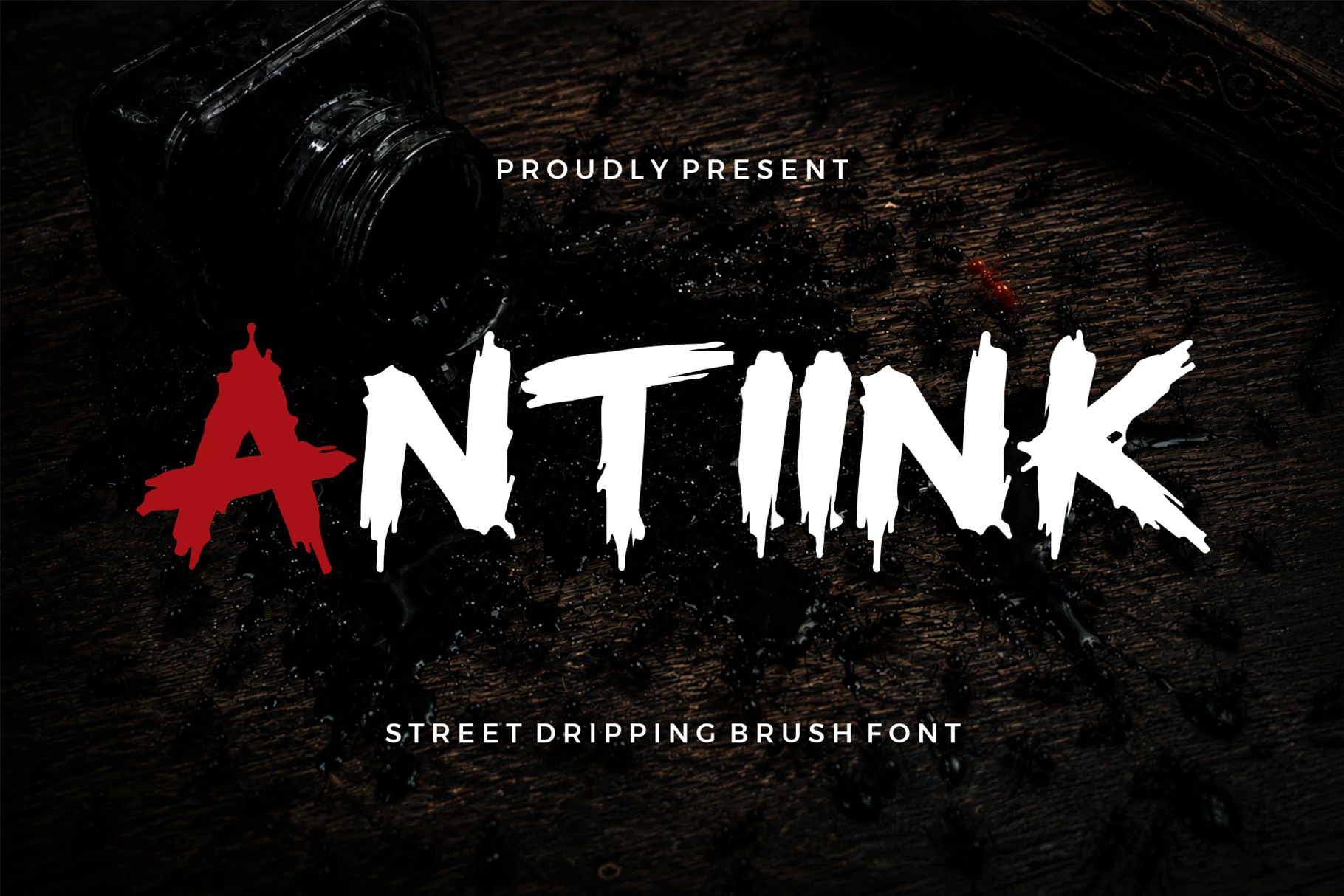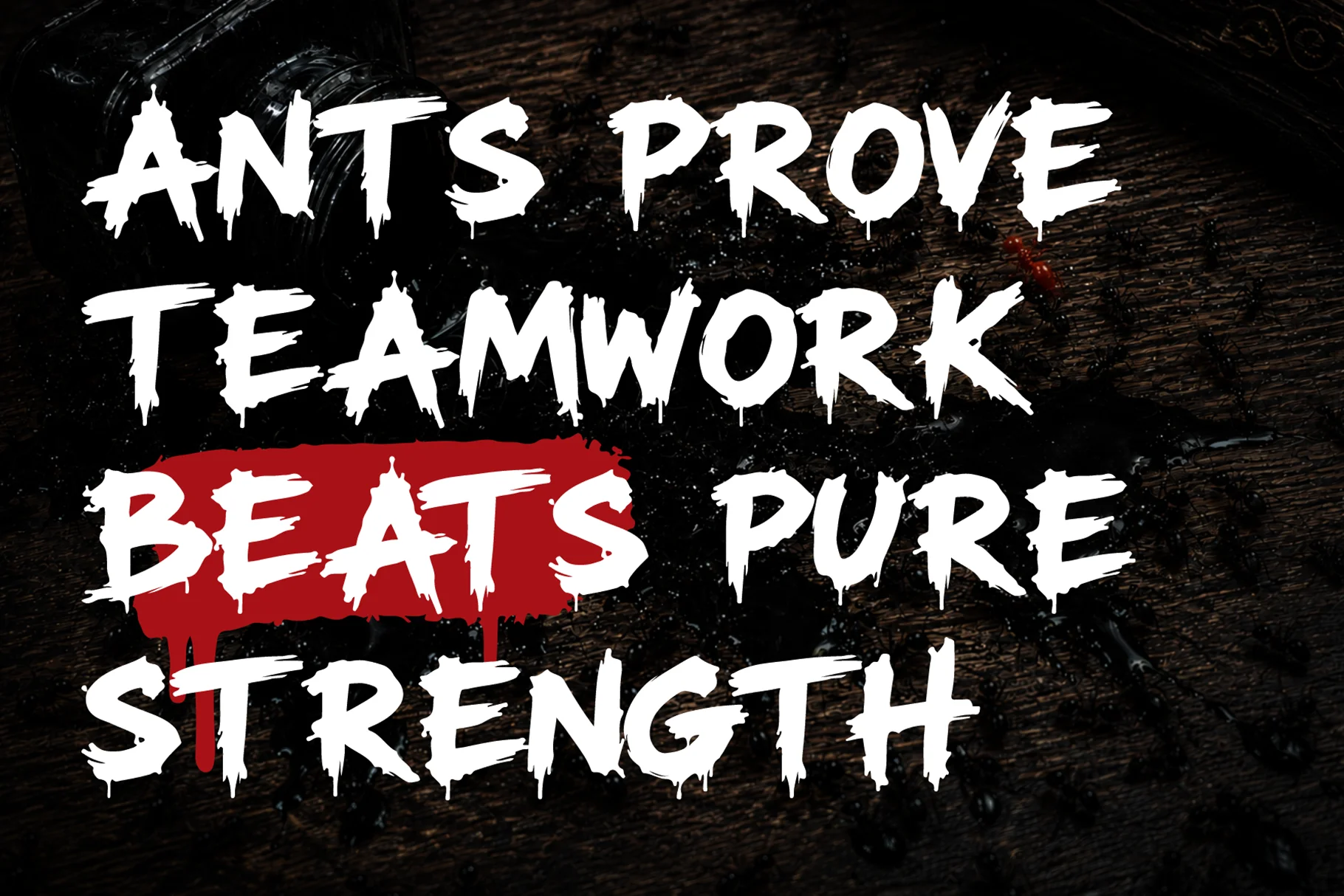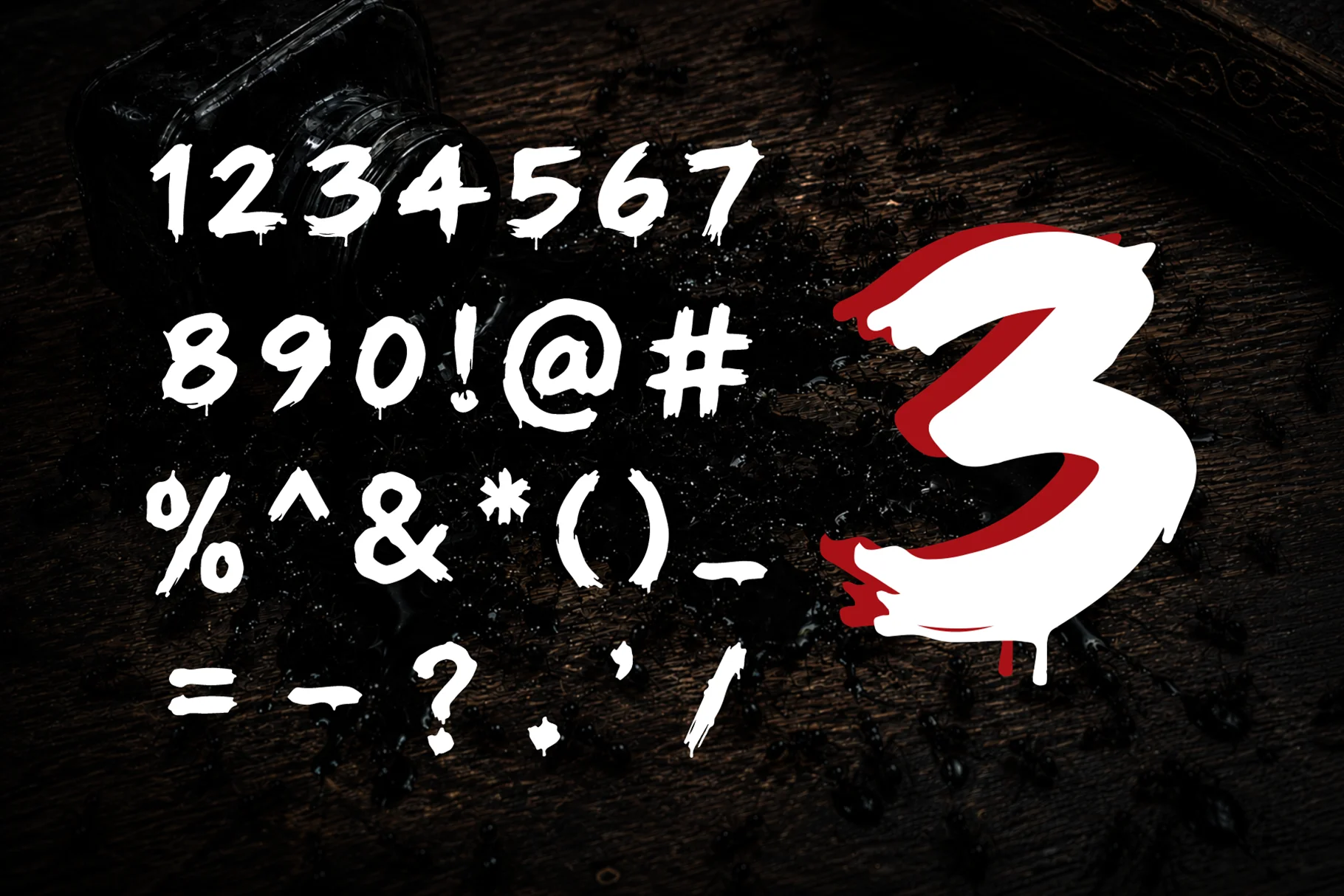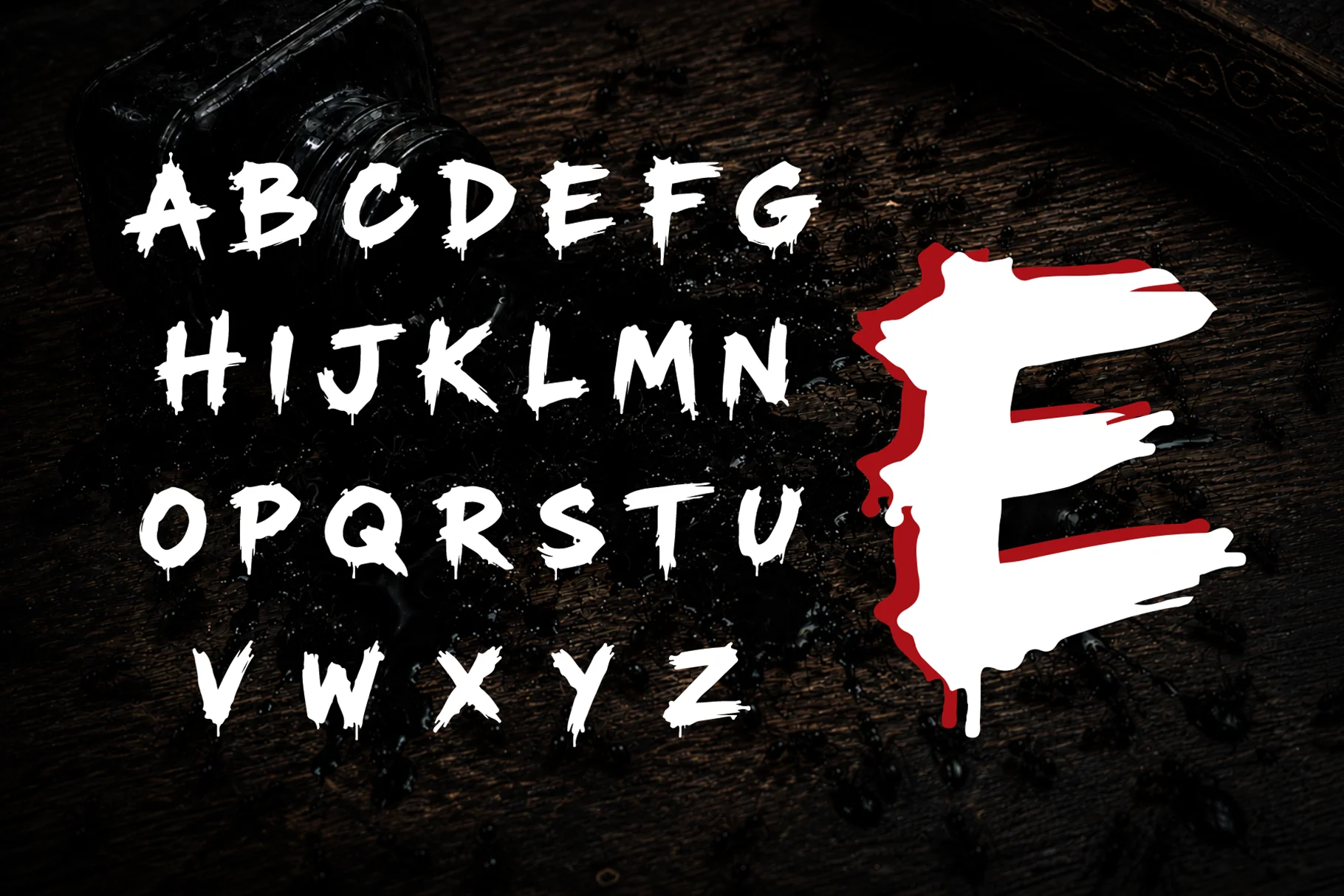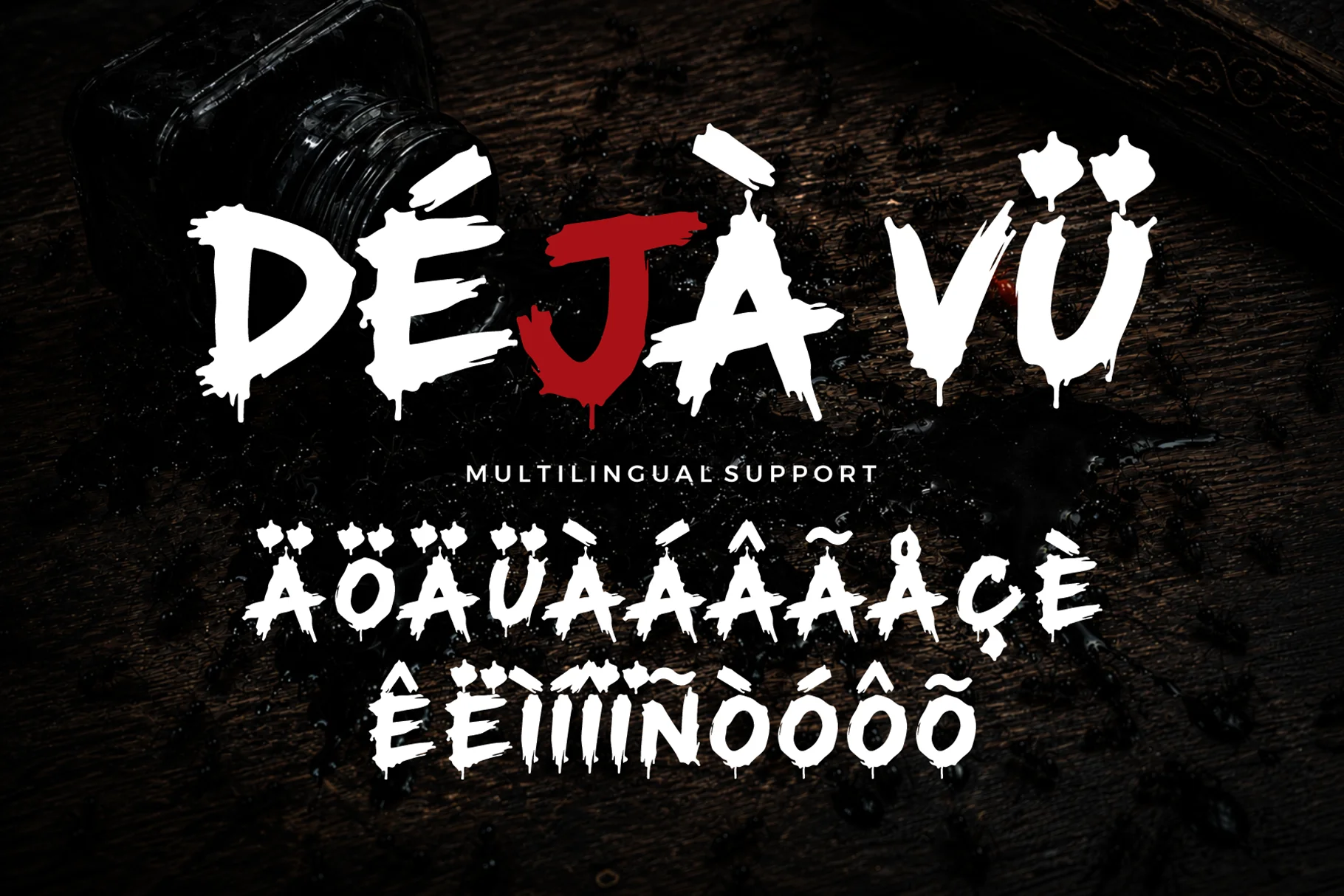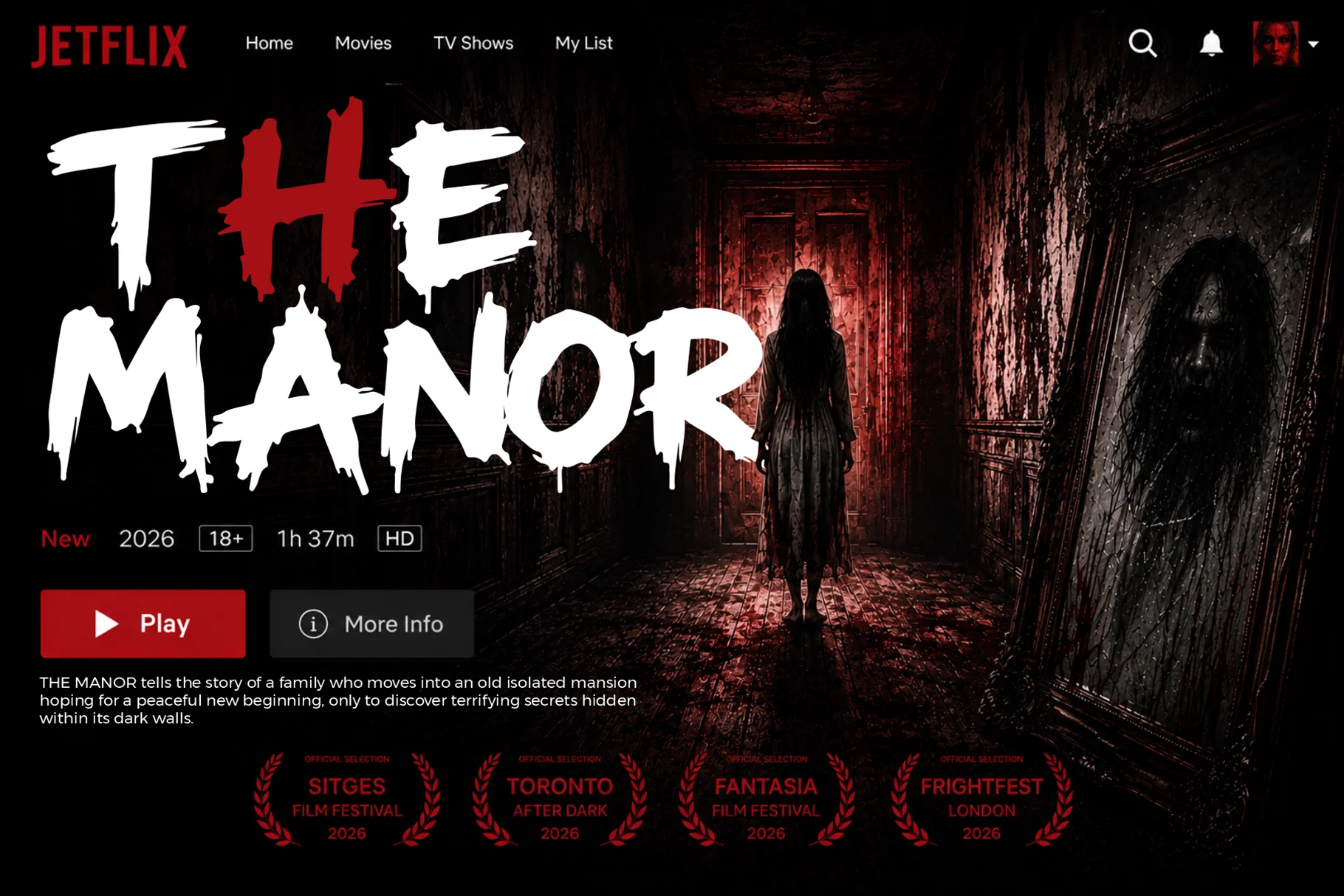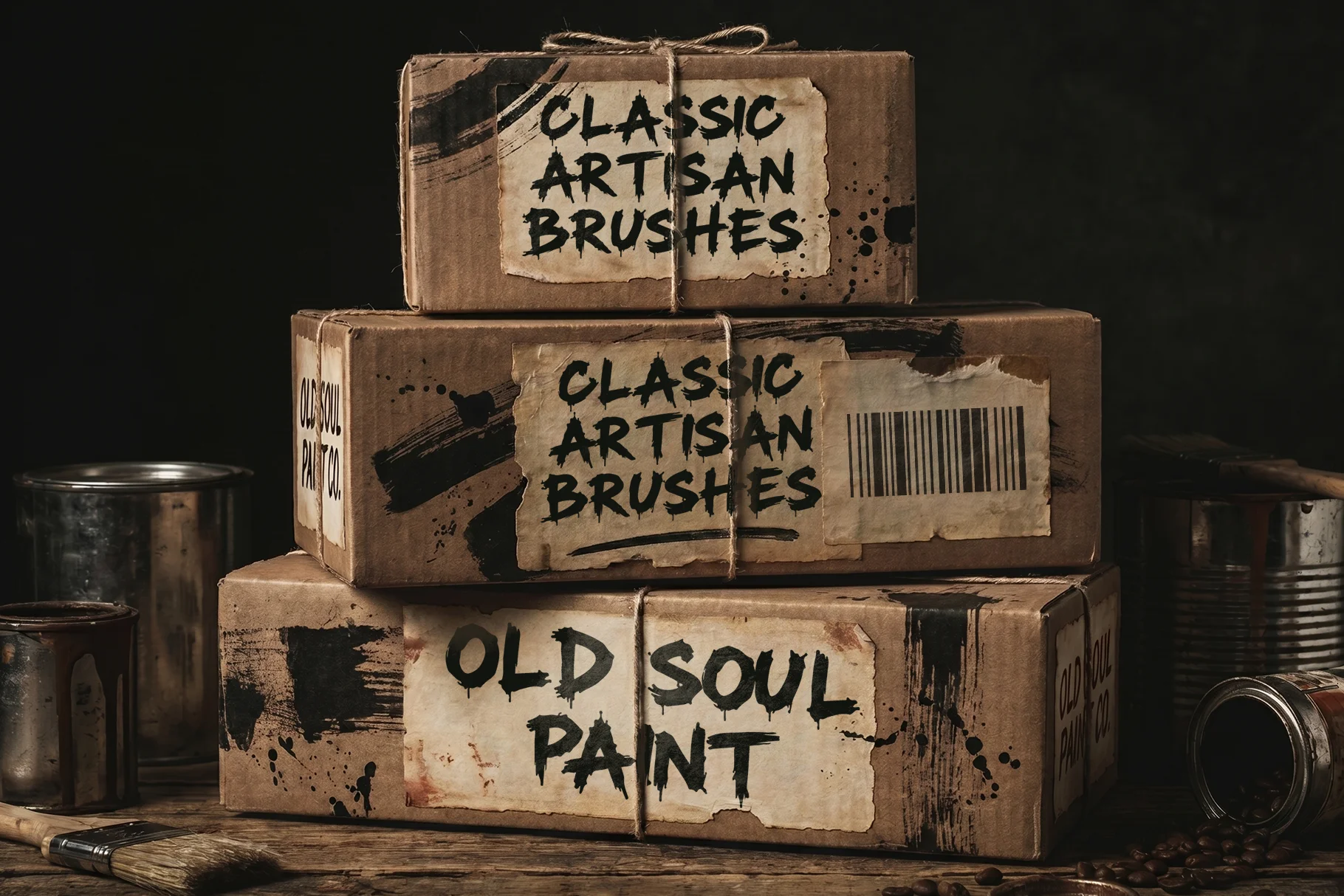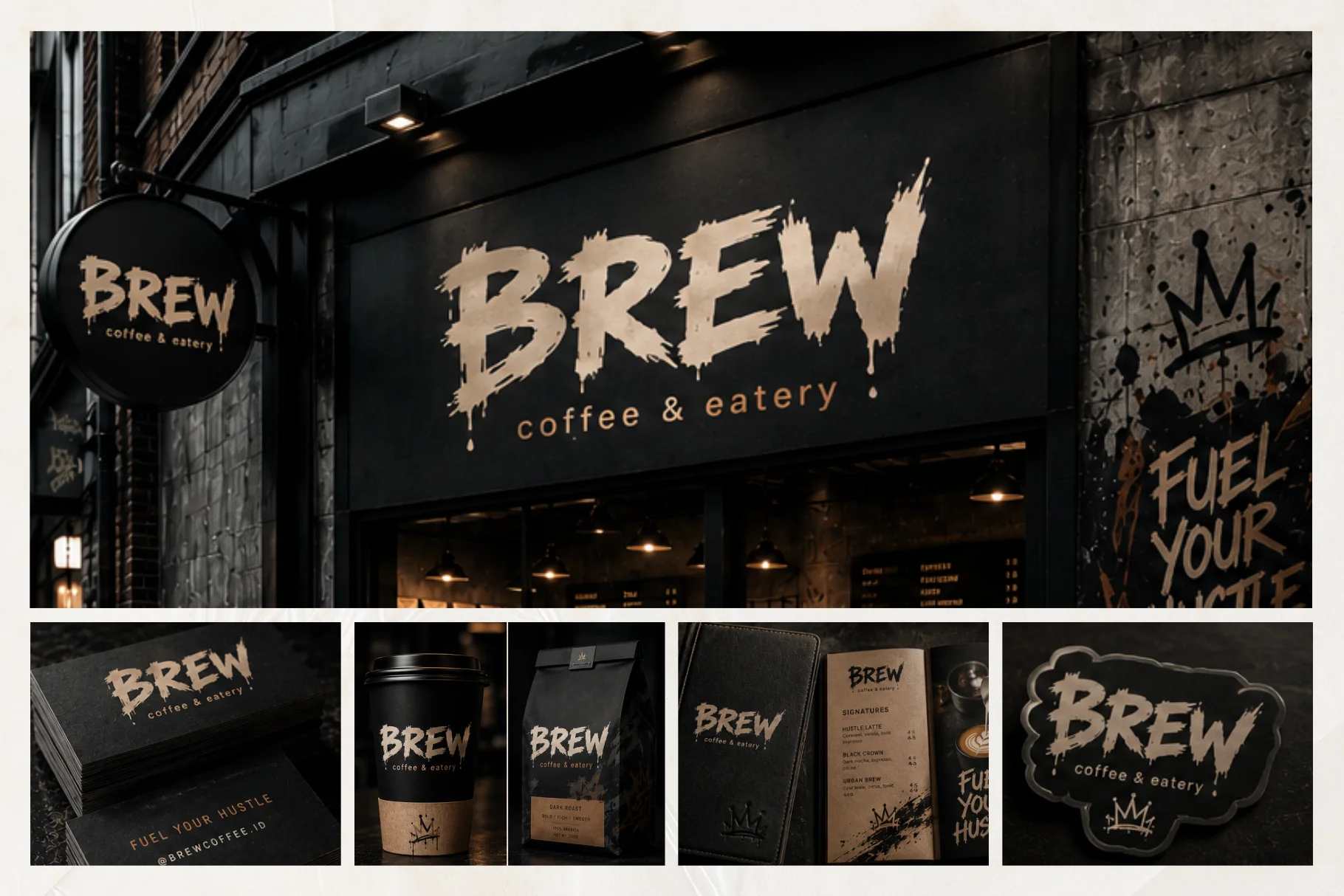
About Antiink
Antiink is a horror dripping street brush font with a raw, aggressive character and a distinctly distressed visual attitude. Its rough brush construction, uneven edges, and dripping forms create the impression of ink dragged across a surface, giving the lettering a dark, rebellious presence.
Built for expressive display typography, Antiink brings together street brush energy and horror-inspired atmosphere. The irregular strokes and dripping details make it especially effective for artwork that needs tension, grit, and underground character. It works naturally across posters, streetwear graphics, music artwork, gaming visuals, merchandise, and other bold compositions.
Antiink is most effective when used at display sizes, where its rough texture and distinctive silhouette can become a central part of the artwork. It can establish an intense headline treatment while adding an organic, hand-painted quality to the surrounding design.
Dripping Horror Brush Character
Antiink combines the spontaneity of street brush lettering with a darker horror aesthetic. Its hand-drawn construction avoids overly clean geometry, giving the alphabet a raw and unpredictable rhythm. Dripping extensions and rough brush edges reinforce the ink-inspired appearance and add visual tension to large words and short phrases.
The result is a display font with a strong underground personality. It can work as a dominant headline or logo-style treatment, while simpler supporting typography can be used alongside it to create contrast and hierarchy.
Uppercase, Numbers & Punctuation
Antiink includes uppercase lettering, numbers, and punctuation, allowing the typeface to handle more than decorative alphabetic headlines. These characters make it practical for titles, short statements, dates, numbers, labels, promotional graphics, and other display-focused compositions.
Applications for Dark Street Graphics
- Horror posters and promotional artwork
- Streetwear and apparel graphics
- Music artwork and album visuals
- Gaming and dark-themed graphics
- Merchandise and underground branding
- Horror dripping street brush style
- Raw and distressed visual character
- Hand-painted brush appearance
- Dripping ink-inspired details
- Uppercase lettering
- Numbers included
- Punctuation included
- Strong display presence
- Dark and rebellious aesthetic
- Suitable for expressive headline typography
Why Designers Love Antiink
Antiink gives typography an immediate sense of attitude through its rough brush construction and dripping details. Instead of looking polished or uniform, the lettering feels physical and spontaneous, making it useful for visual identities that need a more raw and unconventional edge.
Its strong silhouette also makes hierarchy straightforward. Large Antiink lettering can carry the main message, while cleaner supporting type can provide information and contrast. This approach works particularly well in posters, apparel graphics, music visuals, and dark-themed promotional artwork.
Leave an Ink Trail
Antiink brings horror-inspired atmosphere and street brush energy into a rugged display font designed for bold visual statements. Its dripping forms and distressed character make it a natural fit for dark, gritty, and rebellious graphic projects.
Use Antiink for horror typography, streetwear, music artwork, gaming graphics, posters, merchandise, and other projects that call for expressive brush lettering with a dark underground mood.